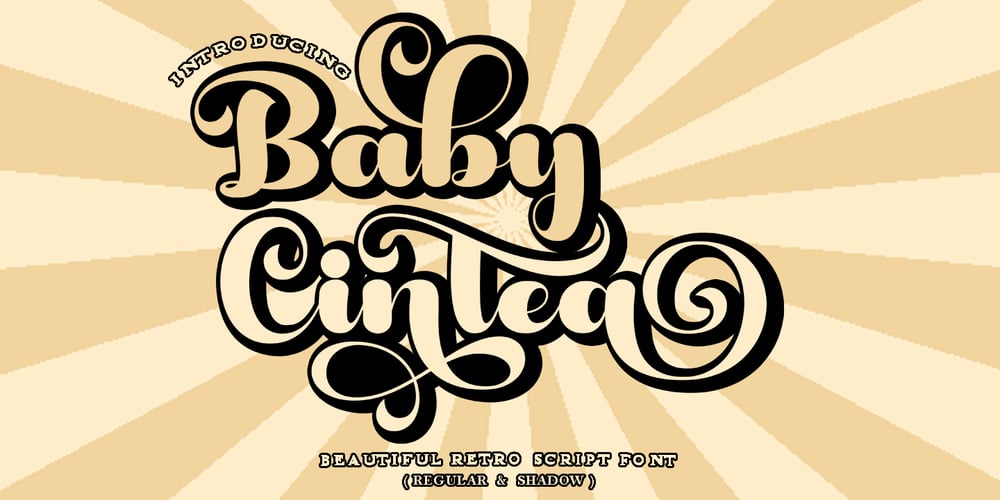
Baby Cintea Font Family was designed by Teuku Bustami and published by TM Type. Baby Cintea contains 1 styles and family package options. Introduce,Baby Cintea. A bold retro script that will take you back to the spirit of adding to your designs. This typeface has an extrude version so you can create a retro effect font easily. This font is very suitable for application, especially on logos, and various other formal forms such as invitations, labels, logos, magazines, books, greeting/wedding cards, packaging, fashion, make up, stationery, novels, labels or all kinds of things. advertising purposes.Feature :uppercase & lowercasenumbers and punctuationmultilingualligaturealternativeswashPUA codedWe highly recommend using programs that support OpenType features and Glyphs panels such as most Adobe and Corel Draw applications, so you can view and access all Glyph variations.if you need anything contact me! Happy Designing!